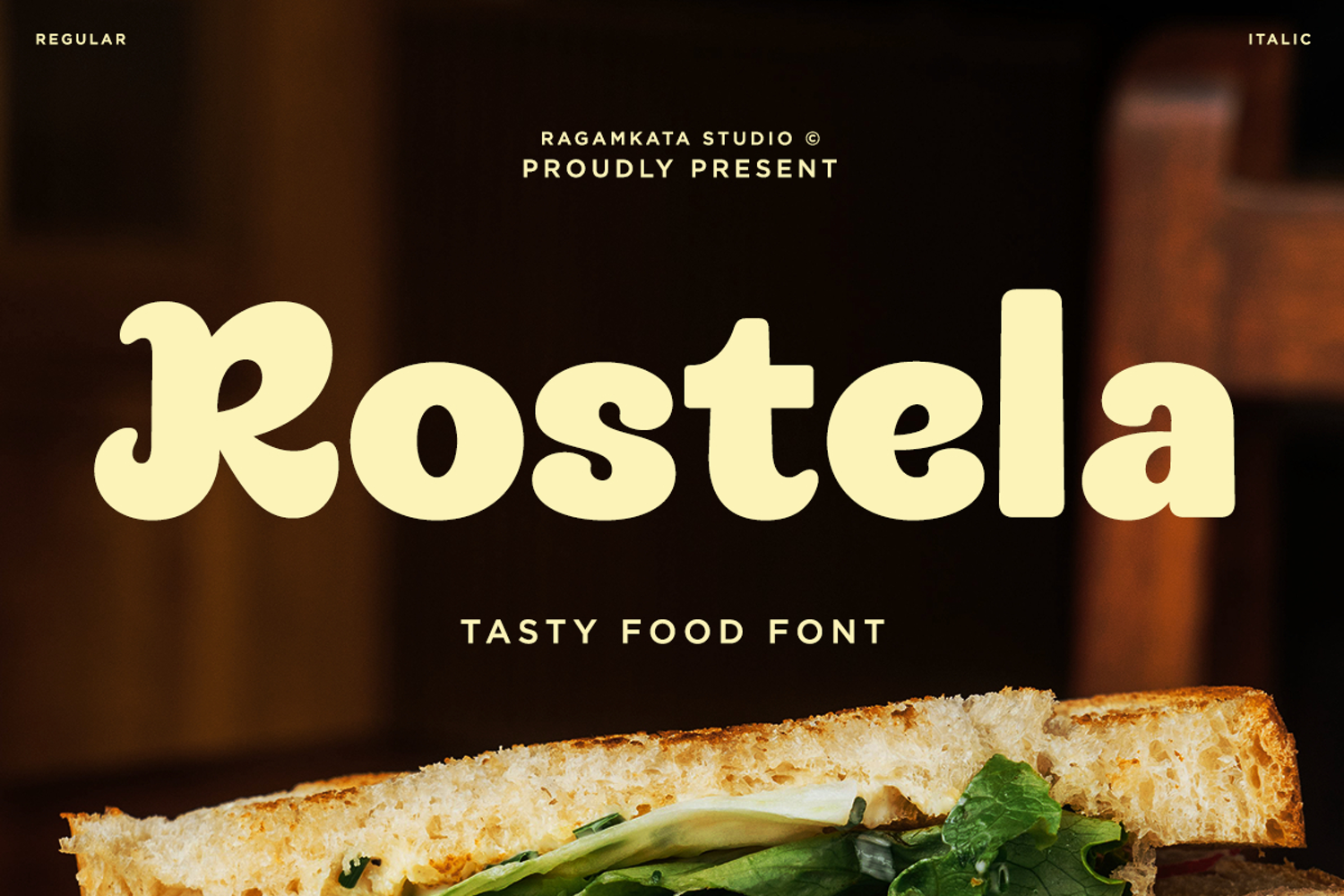
Rostela - Tasty Food Font
Rostela is a playful and tasty display font crafted to bring warmth, flavor, and personality into food-centered design projects. With its soft curves, friendly proportions, and deliciously bold character, Rostela instantly creates an inviting and mouth-watering visual tone that makes audiences feel hungry at first glance. This font is built to communicate joy, comfort, and irresistible appeal.
Designed specifically for food branding, restaurant identity, cafe logos, menu layouts, packaging, product labels, and culinary social media content, Rostela delivers strong visual impact while maintaining excellent readability. Its rounded shapes and balanced weight give it a natural charm that works beautifully across both print and digital platforms, from menus and posters to Instagram posts and packaging designs.
Perfect for restaurants, cafes, bakeries, food trucks, snack brands, beverage labels, dessert shops, and lifestyle branding, Rostela helps elevate your food visuals with a bold yet friendly personality. Whether you're building a full brand identity or designing promotional campaigns, Rostela adds flavor, warmth, and professional polish to every layout.